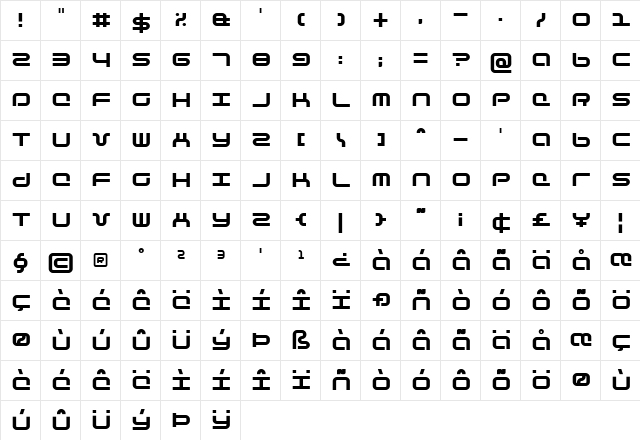
Phutura Regular
| Designer | Andreas Nylin |
Design Context for Phutura Typeface
Phutura takes a measured approach to typography — its balanced proportions and neutral character make it a reliable workhorse for both digital and print work.